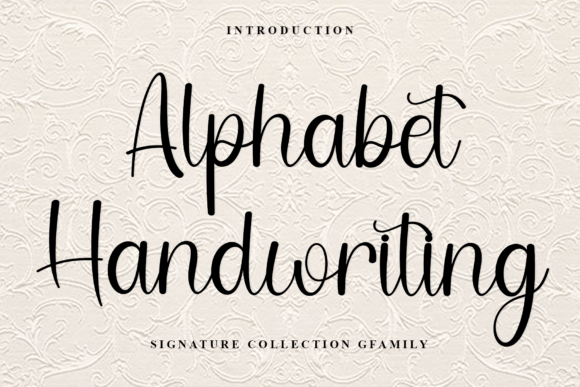
A Touch of Whimsy in Every Letter
As designers, we’ve all been there – staring at a blank page, trying to capture the essence of a moment in a single, perfect design. It’s the feeling of pen scratching against paper, the sound of a handwritten note being slipped into a mailbox, and the warmth of a loved one’s signature on a treasured keepsake. This is the magic that the Alphabet Handwriting Font embodies.
This elegant typeface is more than just a font – it’s a reflection of our personal touch, our unique voice, and our human connection. Part of the exclusive Signature Collection, the Alphabet Handwriting Font is designed to evoke the delicate nuances of natural cursive, making it the perfect choice for designers seeking an authentic, “pen-to-paper” aesthetic.
Alphabet Handwriting Font Key Features
- Unique Characteristics: Features a natural, handwritten feel with subtle variations in letterforms and spacing, ideal for creating a personal and engaging tone.
Designer Review: Alphabet Handwriting Font
Overall, I think Alphabet Handwriting Font is a decent choice for projects that need a personalized touch. ✨ It’s great for creating a friendly and approachable atmosphere, especially when used in invitations, cards, or children’s content. The font’s irregularities and imperfections give it a handmade feel that’s quite endearing.
However, there are some limitations that might make it less suitable for certain projects. ⚠️ For instance, the font’s inconsistent spacing and letterform sizes can make it challenging to read, especially in larger blocks of text. Additionally, the font’s lack of legibility can make it difficult to use for headlines or titles that require clear readability.
- ✨ Friendly and approachable atmosphere
- ✨ Great for invitations, cards, and children’s content
- ✨ Handmade feel that’s quite endearing
- ⚠️ Inconsistent spacing and letterform sizes
- ⚠️ Lack of legibility in larger blocks of text
- ⚠️ Challenging to use for headlines or titles
Overall, I think Alphabet Handwriting Font is a good choice for projects that prioritize a personal and approachable tone, but it may not be the best option for projects that require clear readability or professionalism.
Practical Application Guide for Alphabet Handwriting Font
Use the Alphabet Handwriting Font to add a personal touch to your designs.
Combine it with other fonts to create a unique and eye-catching look.
Experiment with different font sizes and styles to achieve the desired effect.
Use the Alphabet Handwriting Font for:
Children’s books and educational materials.
Wedding invitations and event graphics.
Personalized stationery and gift tags.
Alternatives to Alphabet Handwriting Font for Designers
The Great Vibes Font is a modern, cursive handwriting font that is perfect for creating a friendly and approachable atmosphere. It is ideal for use in social media, advertising, and packaging design. Great Vibes Font is a more elegant and sophisticated alternative to Alphabet Handwriting Font, making it suitable for high-end branding and luxury products.
Alex Brush Font is a beautiful, handwritten script that is perfect for creating a personal and emotional connection with the audience. It is ideal for use in wedding invitations, stationery, and other creative projects. Alex Brush Font is a more refined and sophisticated alternative to Alphabet Handwriting Font, making it suitable for high-end fashion and beauty branding.
Carolyna Pro Font is a modern, cursive handwriting font that is perfect for creating a professional and elegant atmosphere. It is ideal for use in business cards, letterheads, and other corporate design projects. Carolyna Pro Font is a more polished and refined alternative to Alphabet Handwriting Font, making it suitable for high-end corporate branding and finance industry.